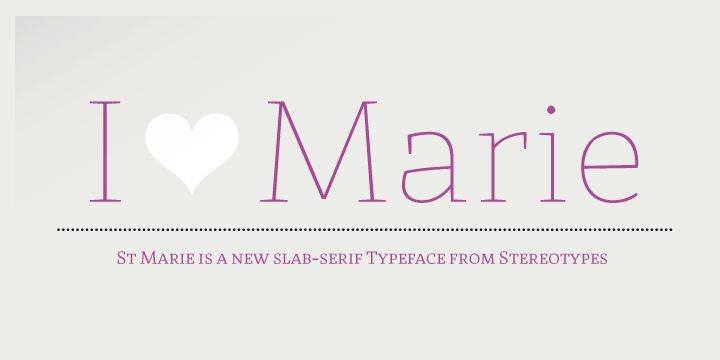
StMarie-Thin by Sascha Timplan of Stereotypes.de is a free thin serif typeface built from hairline strokes, small slab-like serifs, and tall, open letterforms with gently irregular curves. Its light construction feels more drawn than engraved.
Its understated fashion-editorial character suits magazine covers, arts publishing, cultural event posters, and boutique stationery, where the fine lines suggest care and refinement without formal ceremony. In editorial design, it gives feature titles and opening pages a quiet, hand-finished voice that can closely echo delicate line drawings or the clean contours of portrait photography.